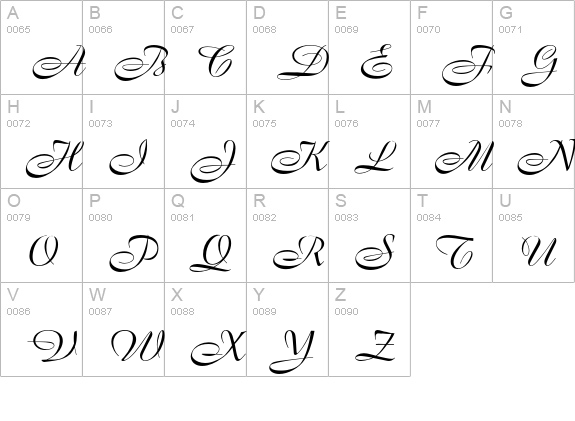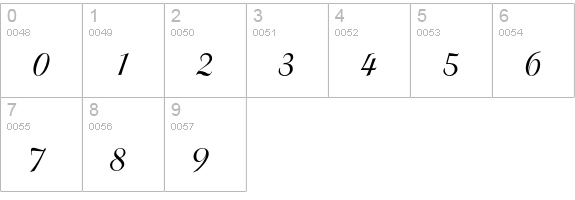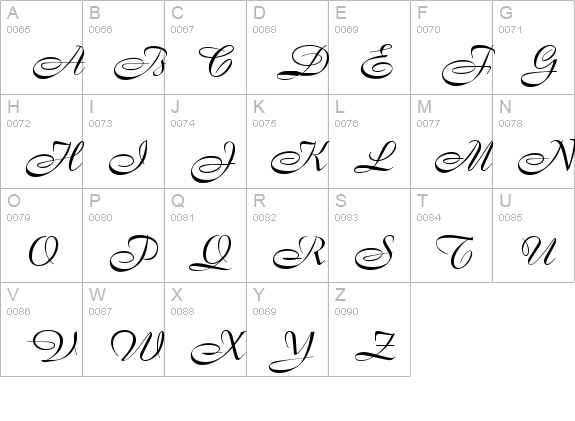
Boulevard Font Details
Boulevard font is a sleek and sophisticated typeface that exudes elegance and modernity. With its clean lines and stylish appearance, Boulevard is perfect for adding a touch of class to any design project. This versatile font is suitable for a wide range of applications, from branding and advertising to editorial and web design. The best part is that Boulevard font is available for free download at FontsMarket.com. Whether you're a seasoned designer looking for a new addition to your font library or a beginner exploring typography for the first time, Boulevard is the perfect choice. Don't miss out on this opportunity to enhance your projects with this stunning font. Download Boulevard today and elevate your designs to the next level.